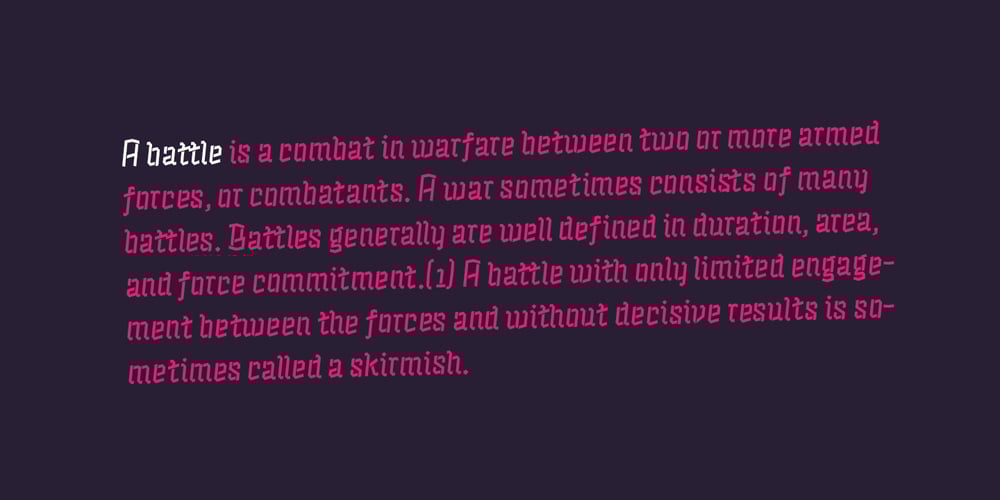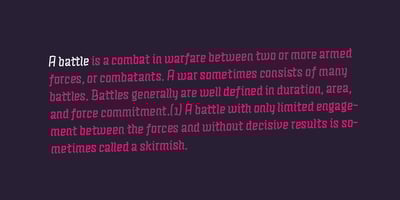
Alquitran Stencil Font Family was designed by Andrey Kudryavtsev, Rodrigo Araya Salas, Francisco Páez and published by RodrigoTypo. Alquitran Stencil contains 8 styles and family package options. Alquitran Stencil is a variant of Alquitran Pro. Alquitran stencil is specially designed for titles, with stencil effect.,Iin addition to Regular and Bold Alquitran Stencil also contains Rough and Rounded with additionally traces Extras (1-2) that are dingbats that support the text to look much more realistic.